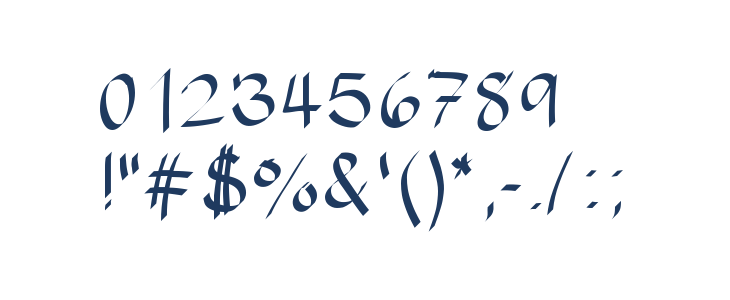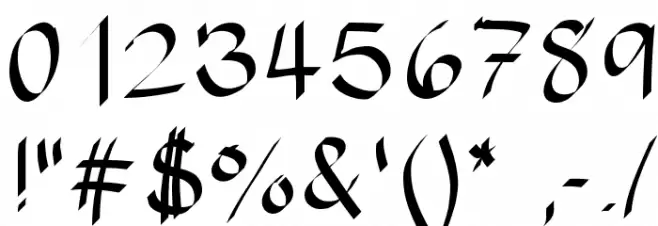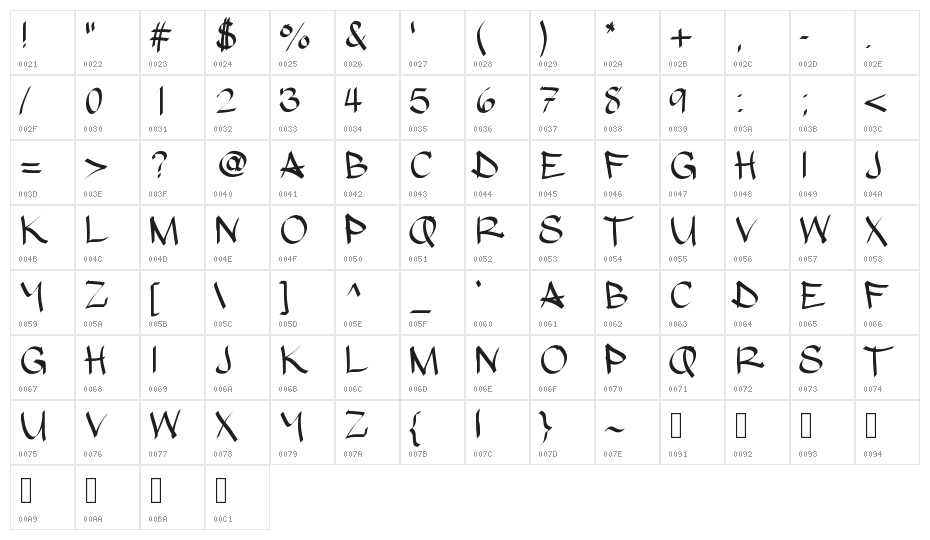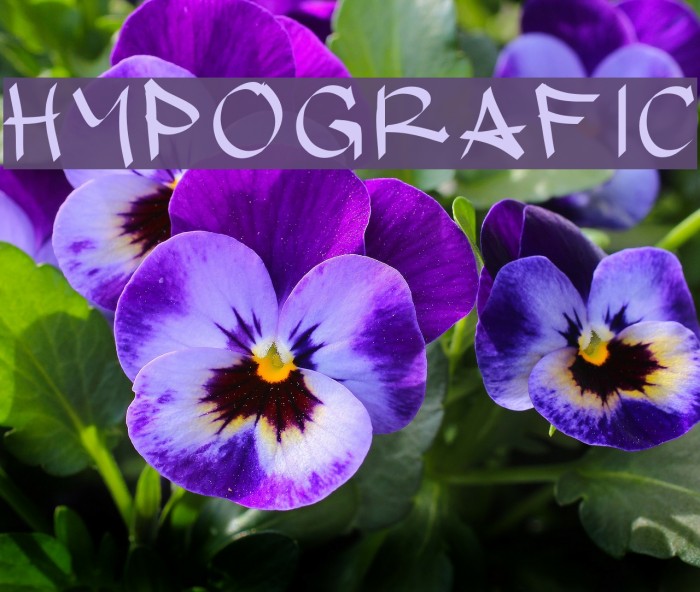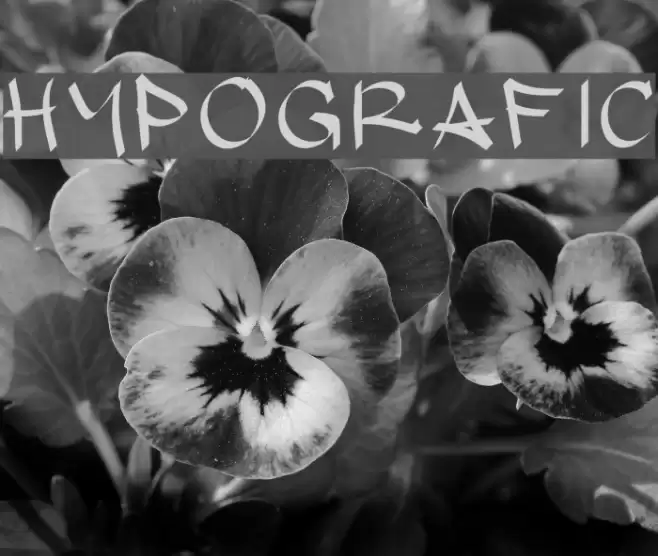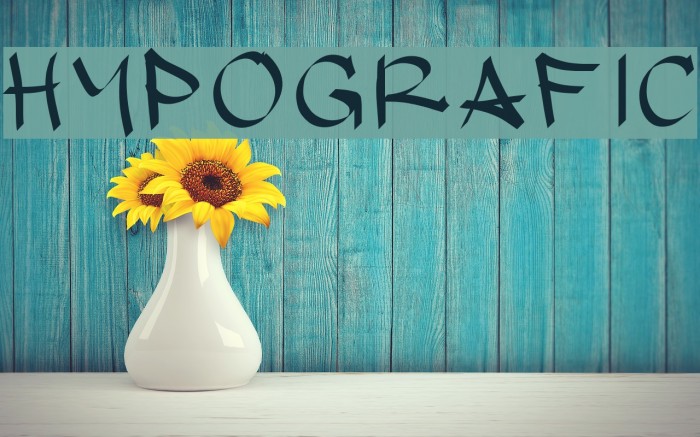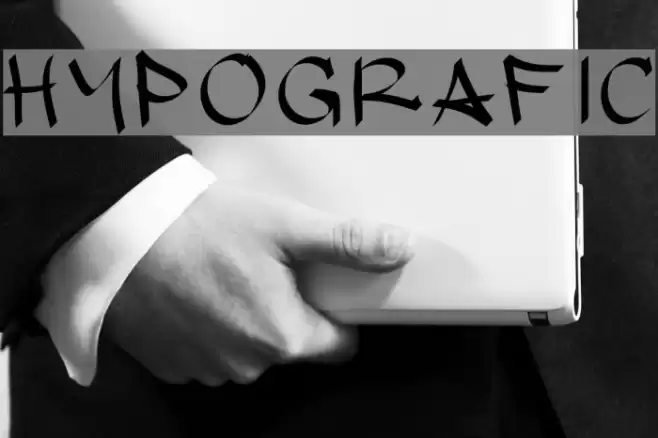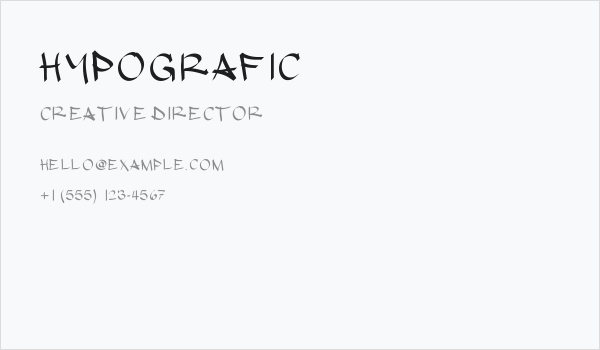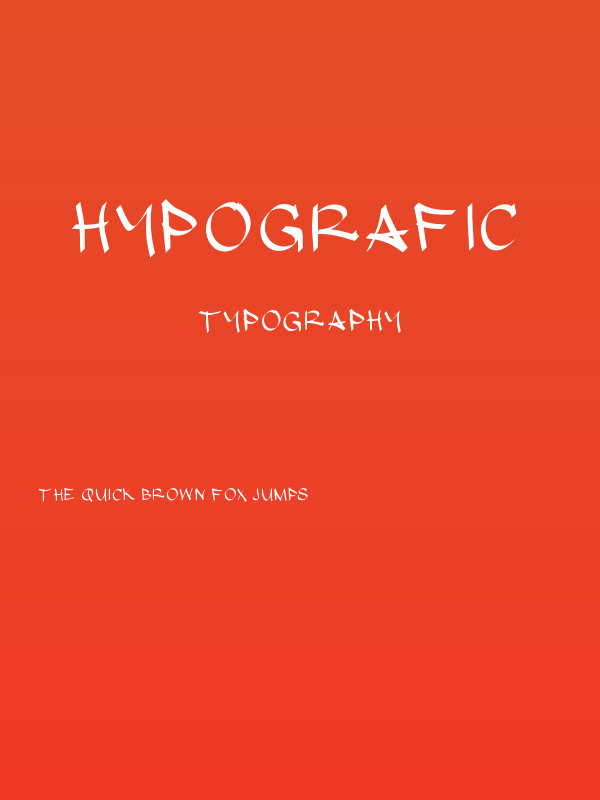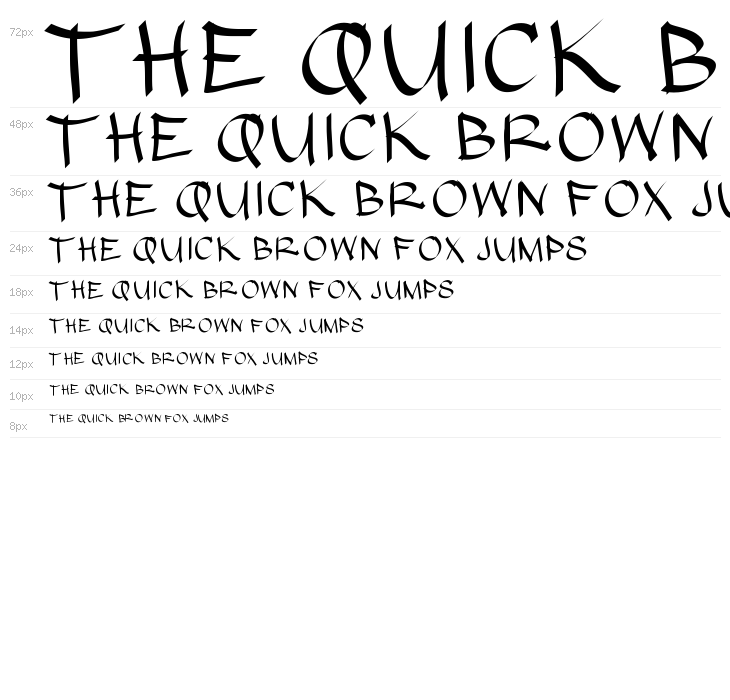
hypografic Font
hypografic Description
This font features a dynamic and energetic style, characterized by sharp, angular strokes and a slightly irregular baseline. The letters exhibit a hand-drawn quality, with varying stroke widths that add a sense of movement and flair. The uppercase and lowercase letters maintain a consistent style, with the uppercase being slightly more pronounced. The numerals and special characters follow the same design principles, ensuring a cohesive look across all glyphs. This font's unique appearance makes it suitable for projects that require a bold and artistic touch.